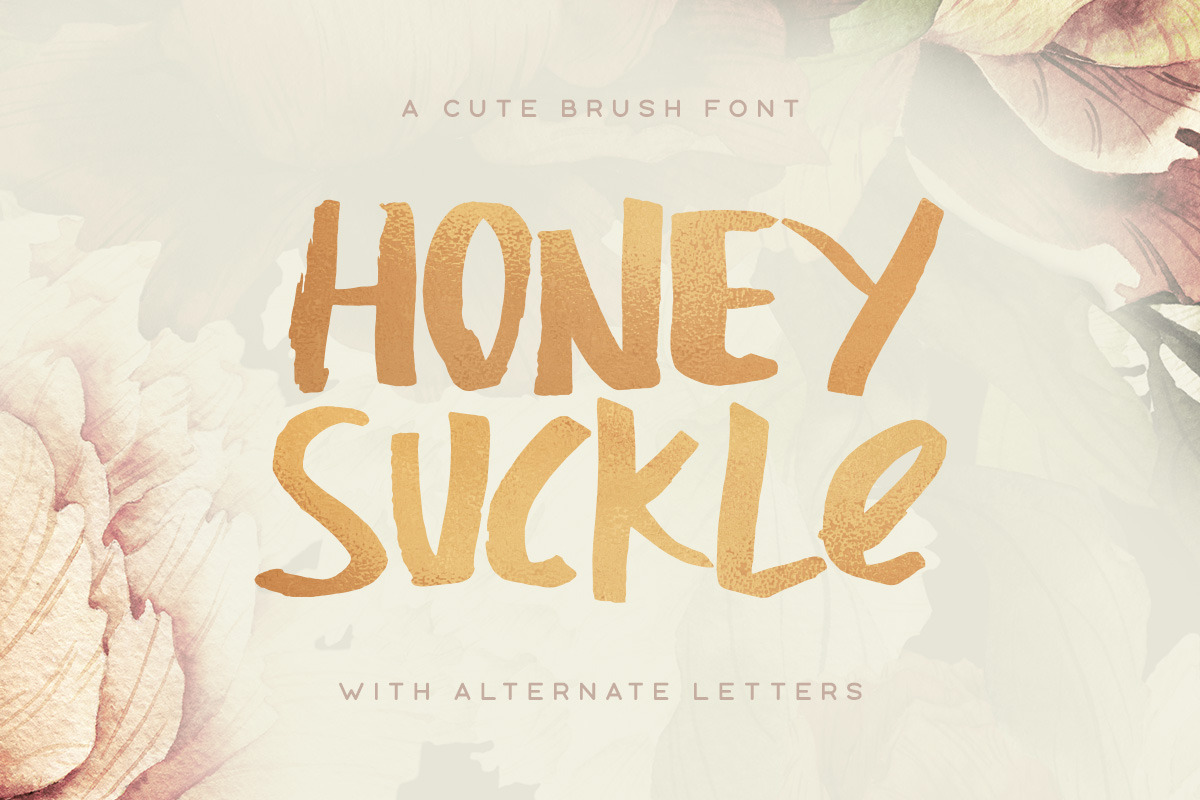
Honeysuckle Typeface
Honeysuckle is a cheerful brush font with alternate letters, multilingual support, extra swashes & decorative elements and it also includes the gold texture in the preview image!